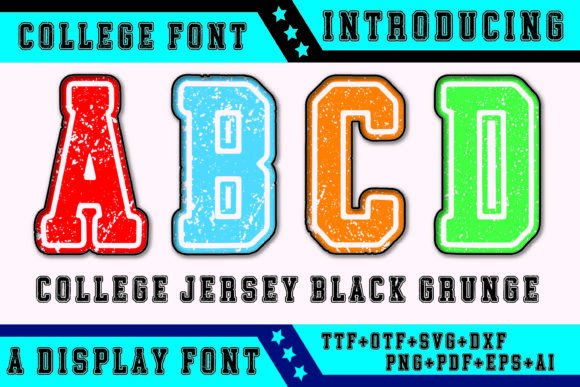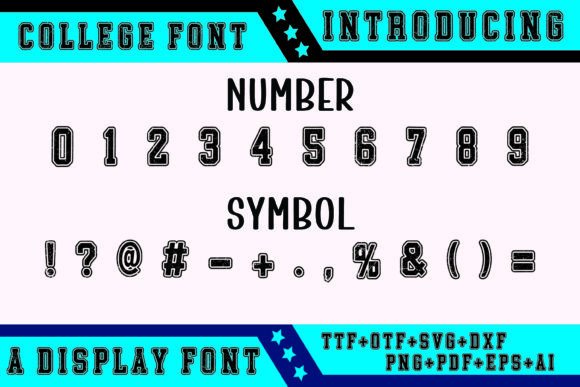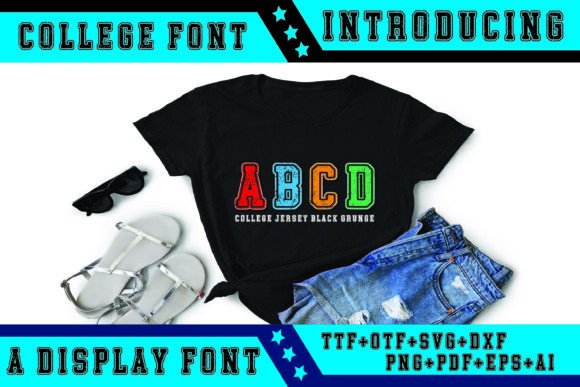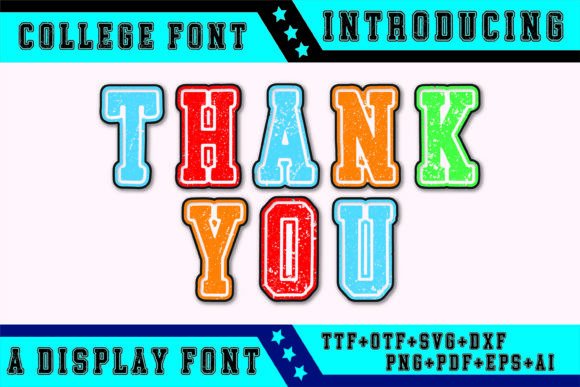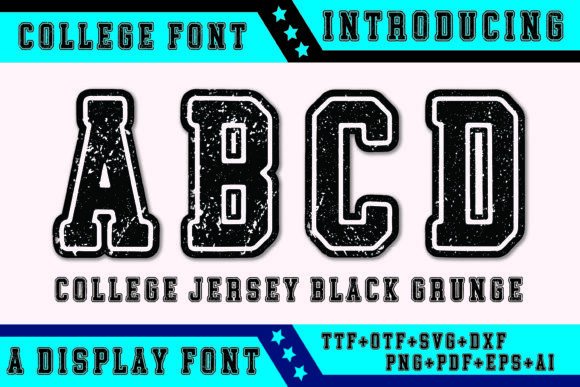
Unleash the Power of College Jersey Black Grunge Font: Elevate Your Designs with Energy and Enthusiasm
Are you tired of using ordinary fonts that fail to capture the essence of your innovative projects? Look no further than the College Jersey Black Grunge V2 FONT, a vibrant and dynamic typeface that’s sure to infuse your designs with joyous hues and a dash of playfulness. In this article, we’ll dive into the world of College Jersey Black Grunge Font, exploring its features, applications, and the magic it brings to various design projects.
A Font that Radiates Cheerfulness and Capriciousness
College Jersey Black Grunge Font is far from ordinary. Its vivacious personality shines through its strong outlines and block-style structure, making it an ideal choice for designers seeking to create captivating logotypes, arresting headlines, and branding campaigns that stand out from the crowd. This font is tailored to bring energy, tradition, and competitive spirit to every project, whether you’re designing apparel, banners, or sports tournament flyers.
Perfect for Sports Themes and School Branding
As its name suggests, College Jersey Black Grunge Font is specifically designed for sports themes, team uniforms, school branding, and dynamic poster designs. Its bold and rugged aesthetic makes it perfect for creating eye-catching designs that resonate with sports enthusiasts and students alike. Whether you’re a designer, a coach, or a school administrator, this font is sure to help you create memorable and impactful designs that showcase your team’s spirit and personality.
Beyond Sports: Versatility at Its Finest
While College Jersey Black Grunge Font excels in sports-themed designs, its versatility extends far beyond. This font can be used for a wide range of projects, including wedding invitations, packaging designs, and branding campaigns. Its unique blend of playfulness and sophistication makes it an excellent choice for designers seeking to add a touch of personality to their work.
Key Features of College Jersey Black Grunge Font
- Strong Outlines and Block-Style Structure: Giving your designs a bold and rugged aesthetic.
- Vivacious Personality: Infusing your projects with energy, enthusiasm, and playfulness.
- Versatility: Suitable for a wide range of design projects, from sports themes to wedding invitations.
- Easy to Read: Its clear and block-style structure ensures excellent readability, even at smaller font sizes.
Tips and Tricks for Using College Jersey Black Grunge Font
To get the most out of College Jersey Black Grunge Font, consider the following tips:
- Experiment with Colors: This font looks great in bold and bright colors, so don’t be afraid to try out different hues.
- Mix and Match: Combine College Jersey Black Grunge Font with other fonts to create a unique and eye-catching design.
- Pay Attention to Contrast: Ensure that your text stands out by using contrasting colors and background textures.
College Jersey Black Grunge Font is more than just a typeface – it’s an experience. Its infectious energy, enthusiasm, and playfulness make it an ideal choice for designers seeking to create memorable and impactful designs. Whether you’re a seasoned designer or a crafty DIY enthusiast, this font is sure to inspire you to new creative heights. So why wait? Dive into the world of College Jersey Black Grunge Font today and discover the magical transformation it brings to your designs!